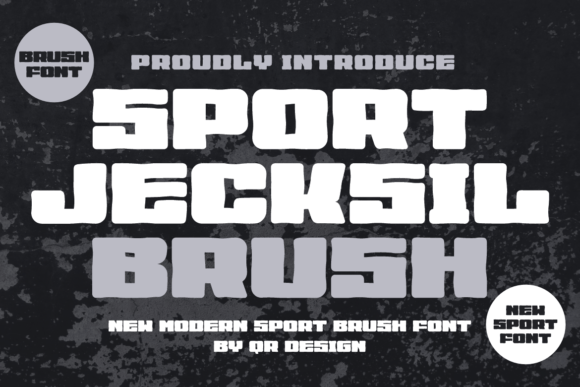
Introducing Sport Jecksil Brush Font, the ultimate choice for those seeking a captivating and fancy look! Created by qrdesignstd, this bold and authentic display font is the perfect addition to your branding projects, logo designs, t-shirt prints, and so much more.
With its decorative font family, Sport Jecksil Brush Font brings a touch of uniqueness and elegance to any design. Let your creativity flow as you explore the endless possibilities this font offers, elevating your brand to new heights.
Looking to make a statement? Sport Jecksil Brush Font is here to help you do just that. Its bold and eye-catching style captures attention instantly, leaving a lasting impression on your audience. Stand out from the crowd and showcase your brand with confidence.
Imagine a world where your designs effortlessly reflect your personality and style. With Sport Jecksil Brush Font, you can achieve just that. This font has been meticulously designed to evoke emotions and convey a sense of authenticity. It adds a personal touch to your creations, making them truly remarkable.
Not only is Sport Jecksil Brush Font visually stunning, but it also offers unparalleled versatility. Whether you're working on a food-related project, a fashion brand, or any other creative endeavor, this font seamlessly adapts to your needs. Its ability to shine in a wide range of contexts makes it a must-have for any designer.
Incorporating Sport Jecksil Brush Font into your designs is like adding a stroke of genius. It effortlessly enhances your message and delivers it with impact. Let your words come to life as they dance across the page, captivating your audience and leaving them wanting more.